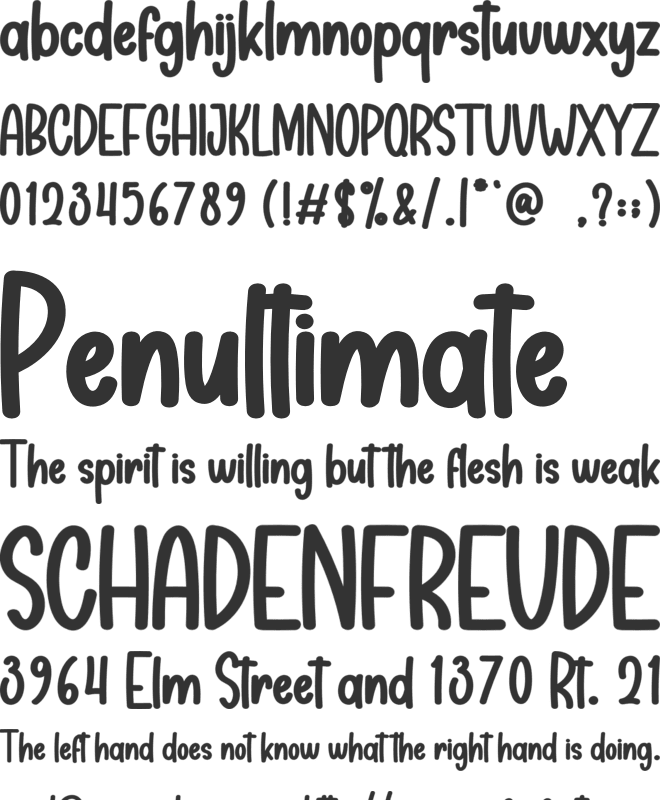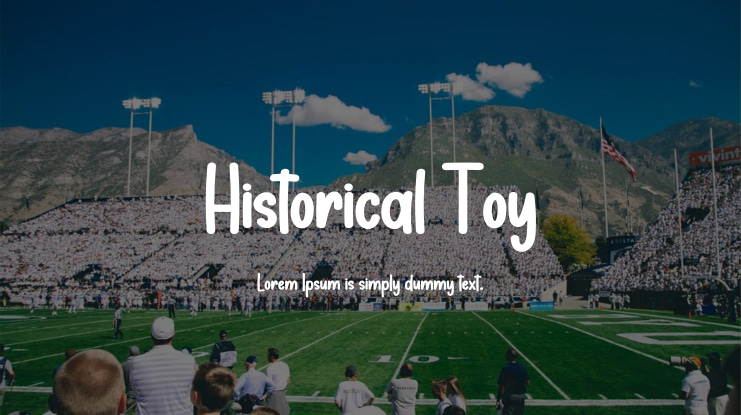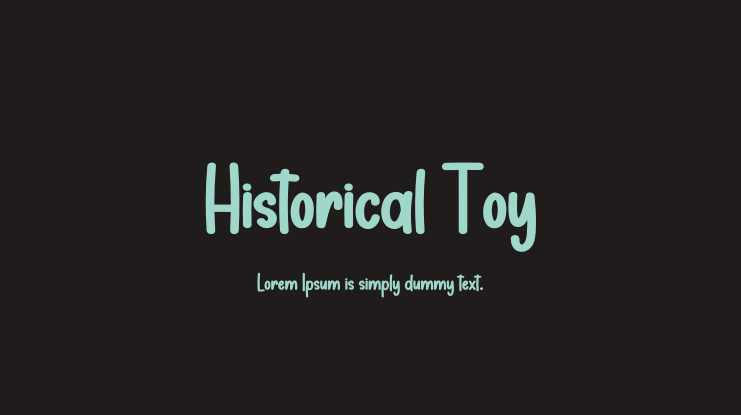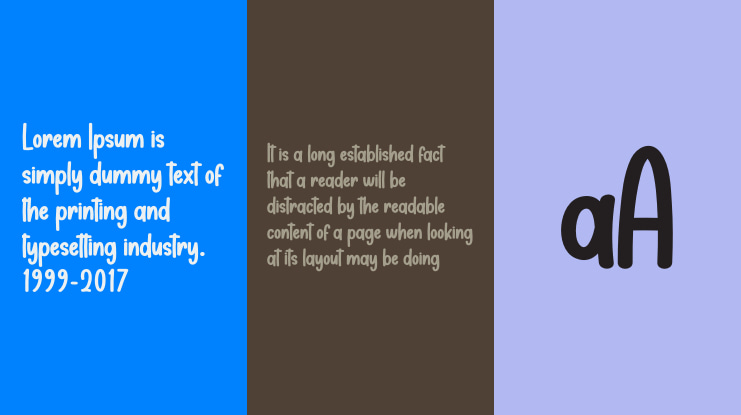
Historical Toy Font
Our latest style of lettering is ideal for wall displays, wedding invitations, social media post logos, advertisements, product packaging, product designs, labels, photography, watermarks, invitations, stationery, and any project that requires elegant handwriting.